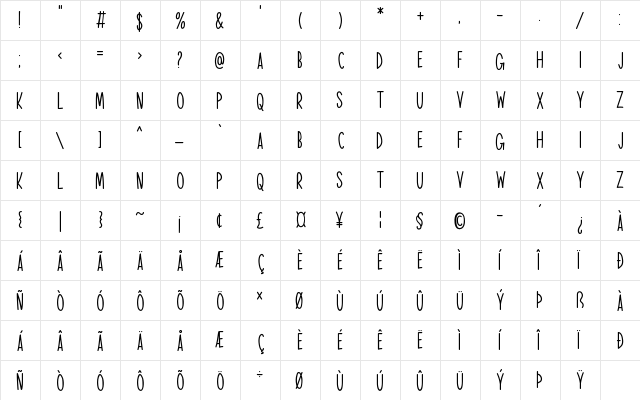
Merry Time Regular
Design Context for Merry Time Typeface
Merry Time is a composed and adaptable typeface that performs quietly and consistently across a wide range of design contexts.